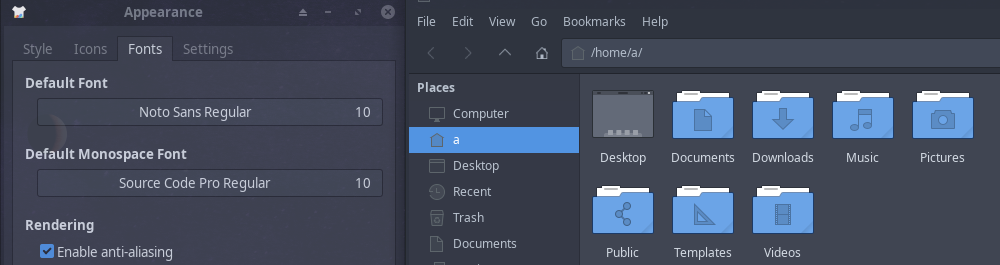
Hello Silvia here, this is my first post. I have used the OS for about two years now and i have found my OS, i really like EndeavourOS, i have not have any trouble with it except for yesterday when i made an update to the system the fonts got bigger and changed for some reason (they do not look like they used to, the letters seems thinner). I like to know how i can change the fonts back to EndavourOS themed XFCE standard settings?
The Default Monospace Font is Source Code Pro Regular (I guess)
Edit: Only monospace fonts can be used in Thunar. R2, R3 iso images use Source Code Pro Regular before and after nornal updates.
Thanks for your reply i tried Source Code Pro Regular, but it’s not the default one, unfortunately. I think the default one is Noto Sans Regular but i’m not sure. After a Noto update yesterday the fonts looks weird. Do anyone else know?
Have you tried changing your sub-pixel rendering options in Settings? Maybe the hinting has been reset? I’m assuming you’ve rebooted.
, i also tried the sub-pixel rendering options but it did not work. Hypermisawa have the same trouble here:
Thanks, - sadly I think this is going to have to await further input. I can’t corroborate this as I use Plasma, hopefully there’s a reason, - my only guess, and this is a guess, is that maybe XFCE have done some preparatory work to how things are rendered in prep for moving to Wayland eventually?